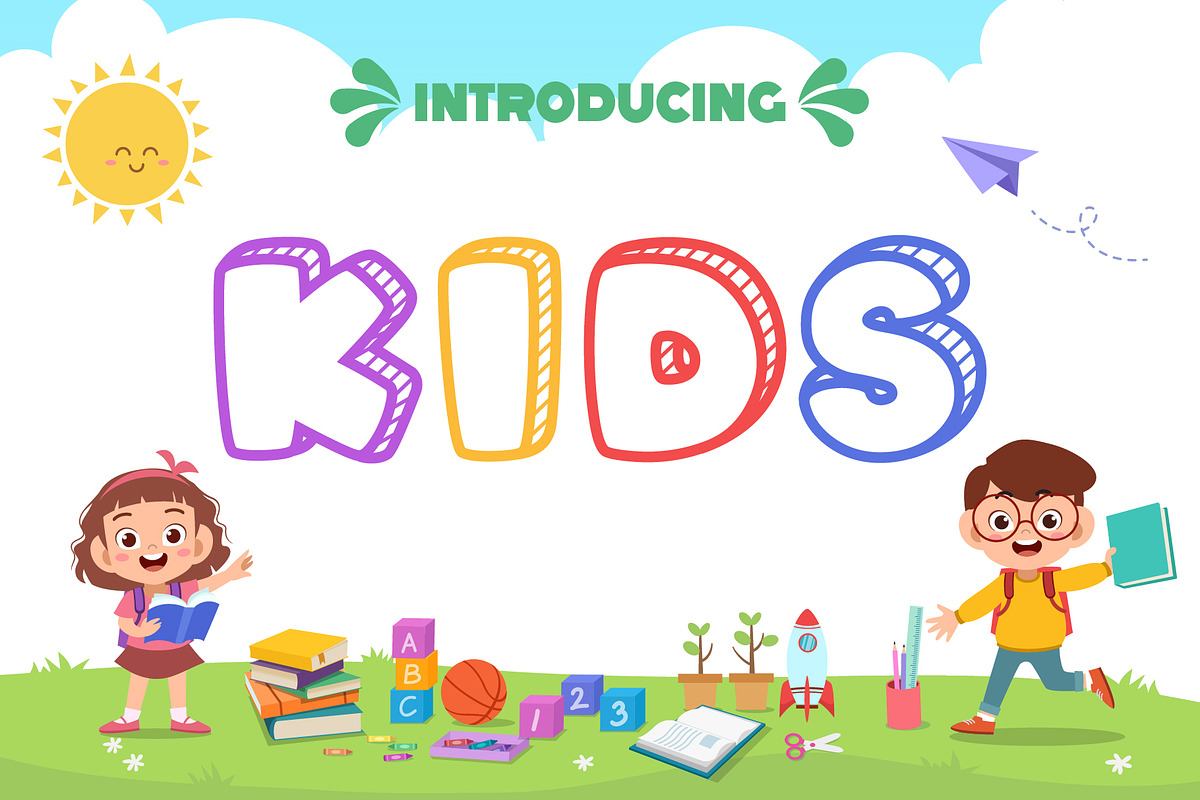
Kids Fonts Free Download offers a collection of playful, colorful, and joyful typefaces made especially for children’s projects. Whether you're creating birthday invitations, educational materials, storybooks, toy packaging, or fun-filled websites, these fonts bring youthful energy to every design.
Each style within Kids Fonts Free Download is crafted to capture the imagination—featuring bubbly curves, bold lines, and friendly shapes that make reading fun and exciting. These fonts are perfect for teachers, parents, designers, and creators who want to speak directly to young audiences in a way that's both engaging and accessible.
From alphabet posters to party banners, kids’ apps to coloring books, these typefaces add a touch of cheer and charm wherever they appear. Pair them with bright colors and cute illustrations for maximum visual delight!
Let your creativity run wild and make every project feel like playtime with Kids Fonts. Because in the world of design—fun is serious business!